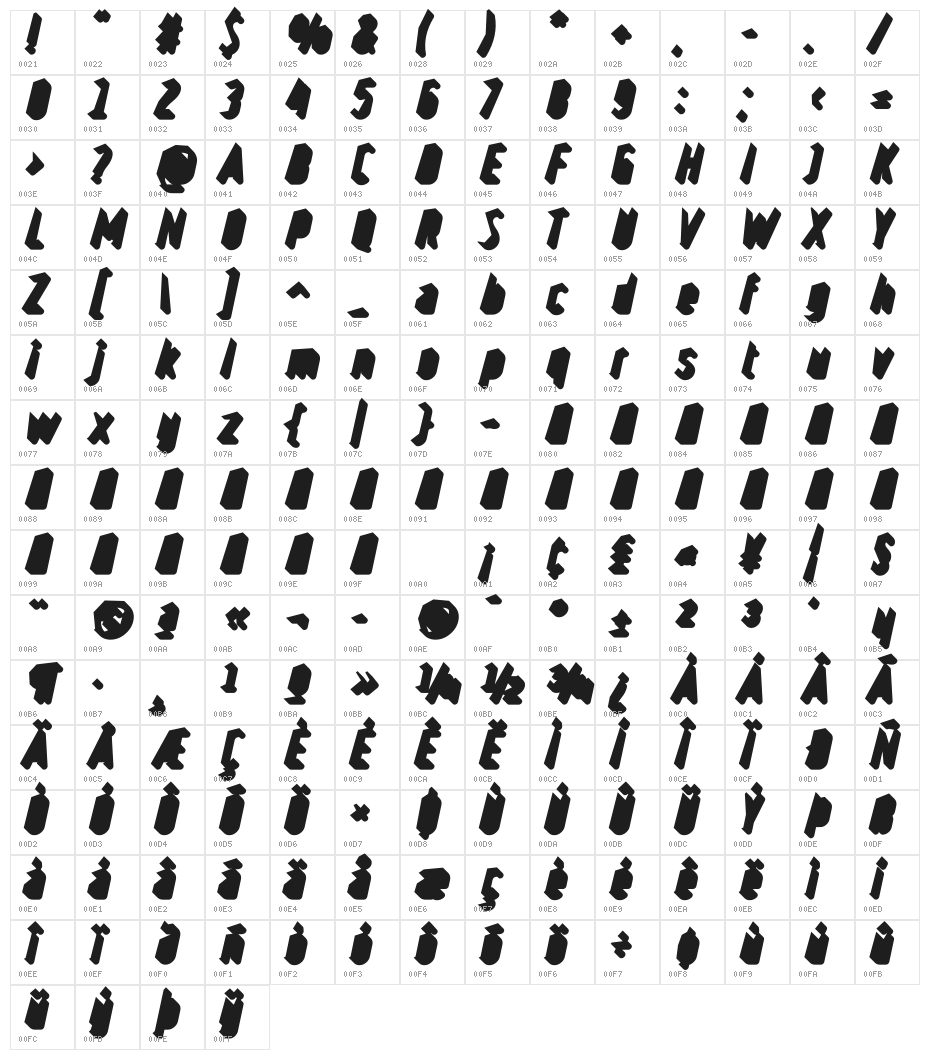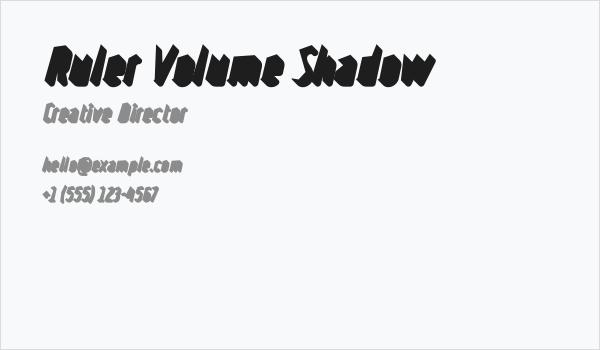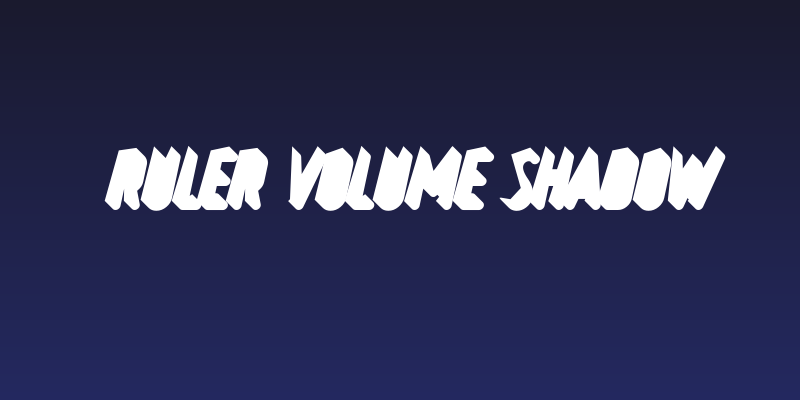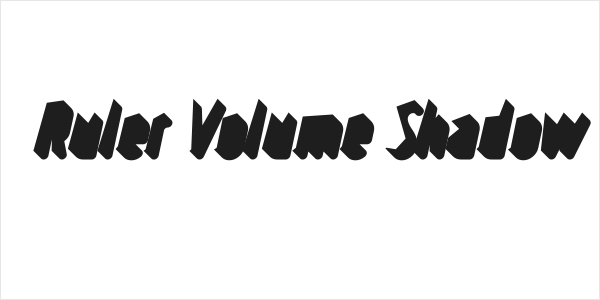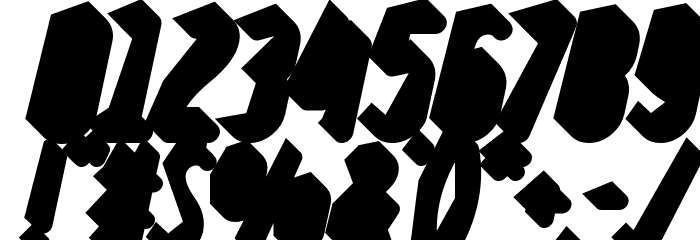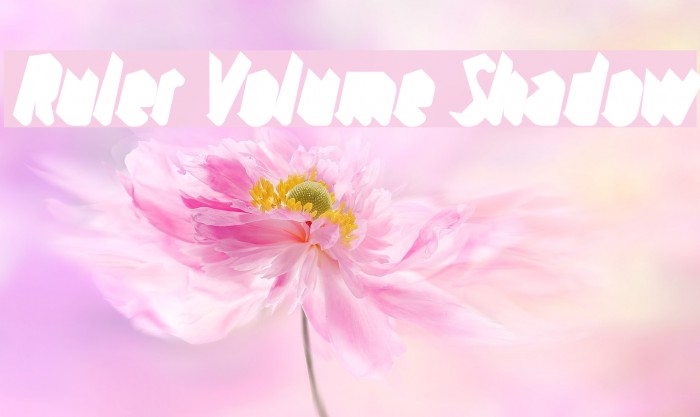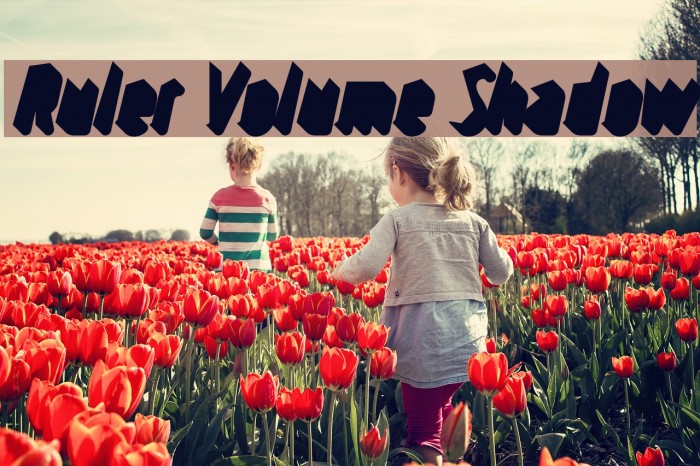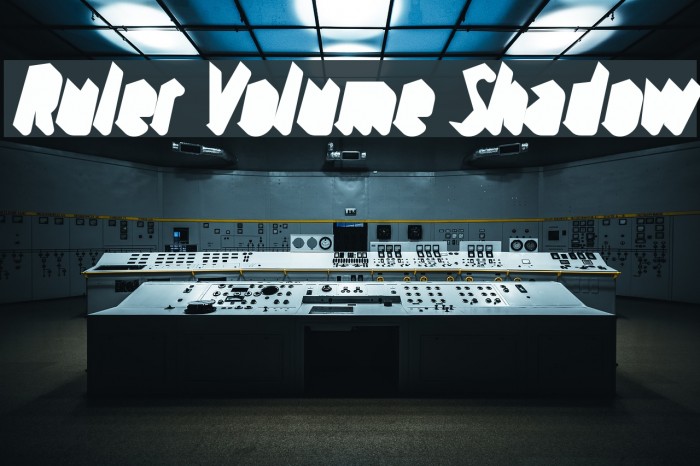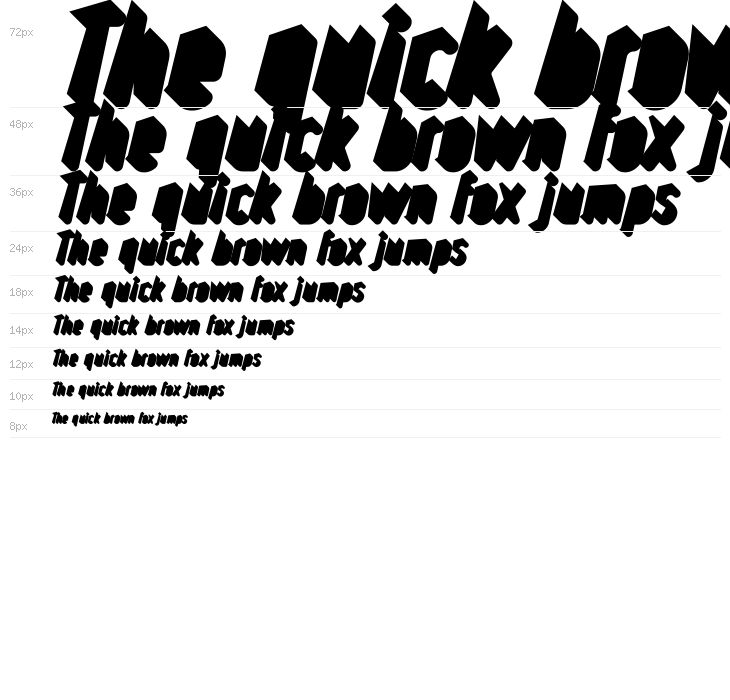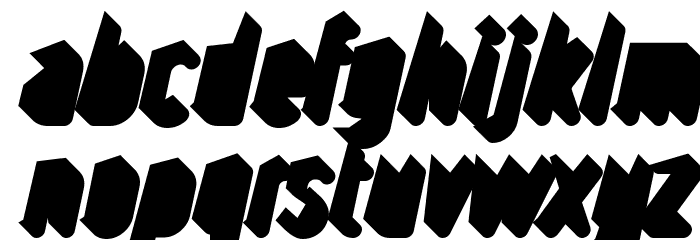
Ruler Volume Shadow Font
Ruler Volume Shadow Description
This font features a bold, three-dimensional shadow effect that gives it a striking and dynamic appearance. The characters are thick and angular, with a strong presence that makes them stand out. The shadow effect adds depth and a sense of movement, making it ideal for eye-catching designs. The uppercase and lowercase letters maintain a consistent style, with sharp edges and a slightly condensed form. Numbers and special characters follow the same bold and shadowed aesthetic, ensuring uniformity across all elements.
| Proposed Projects | Ideal for posters, headlines, logos, and any design requiring a bold, attention-grabbing typeface. |